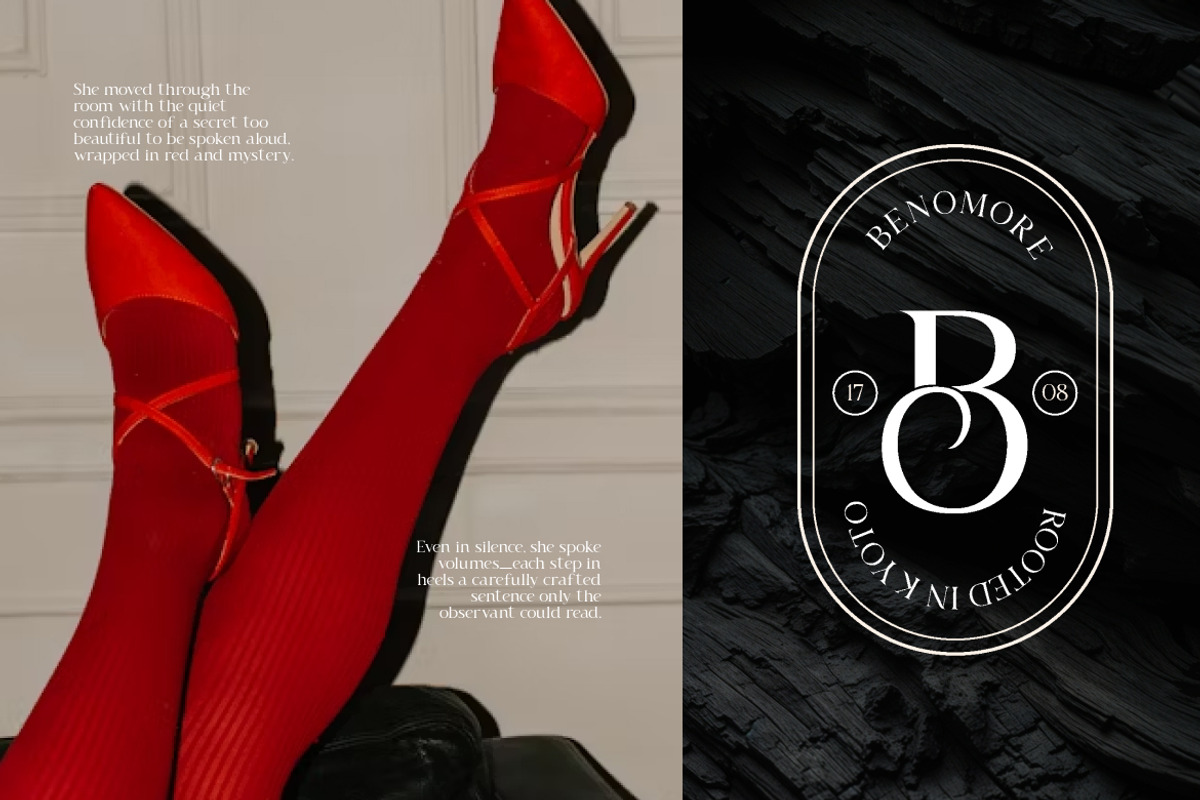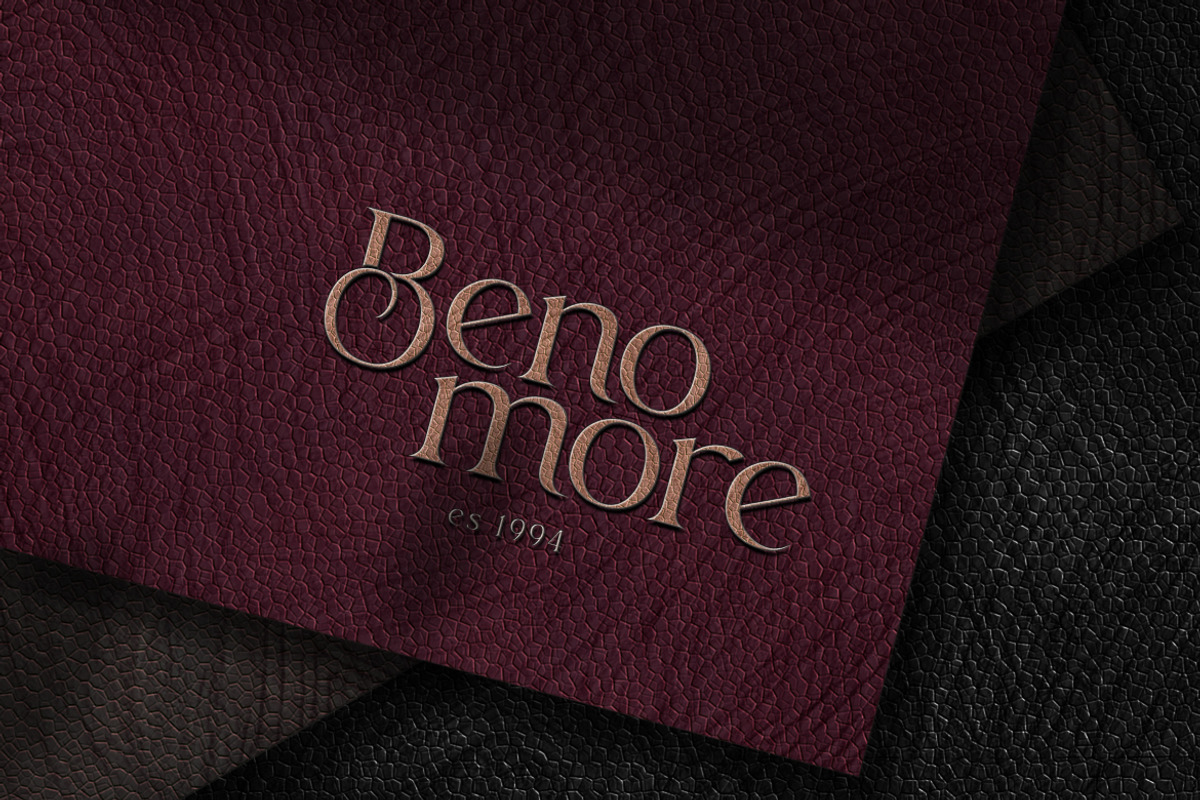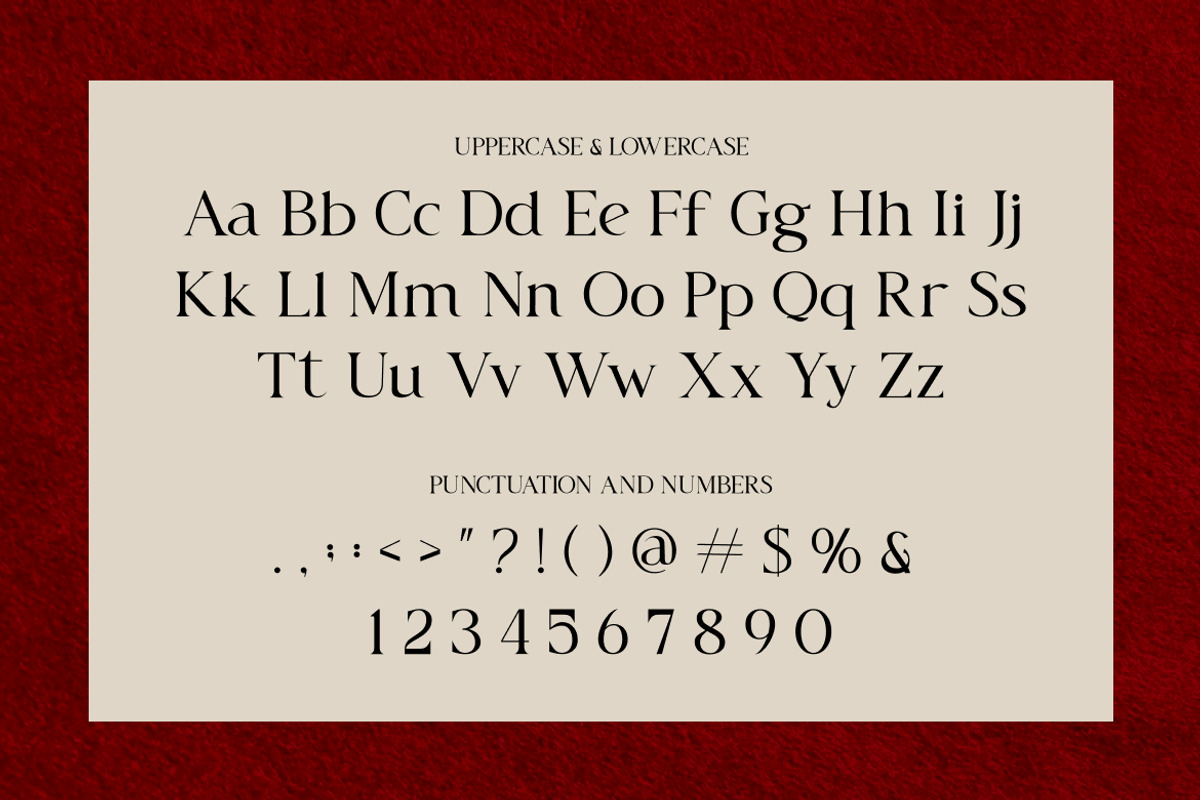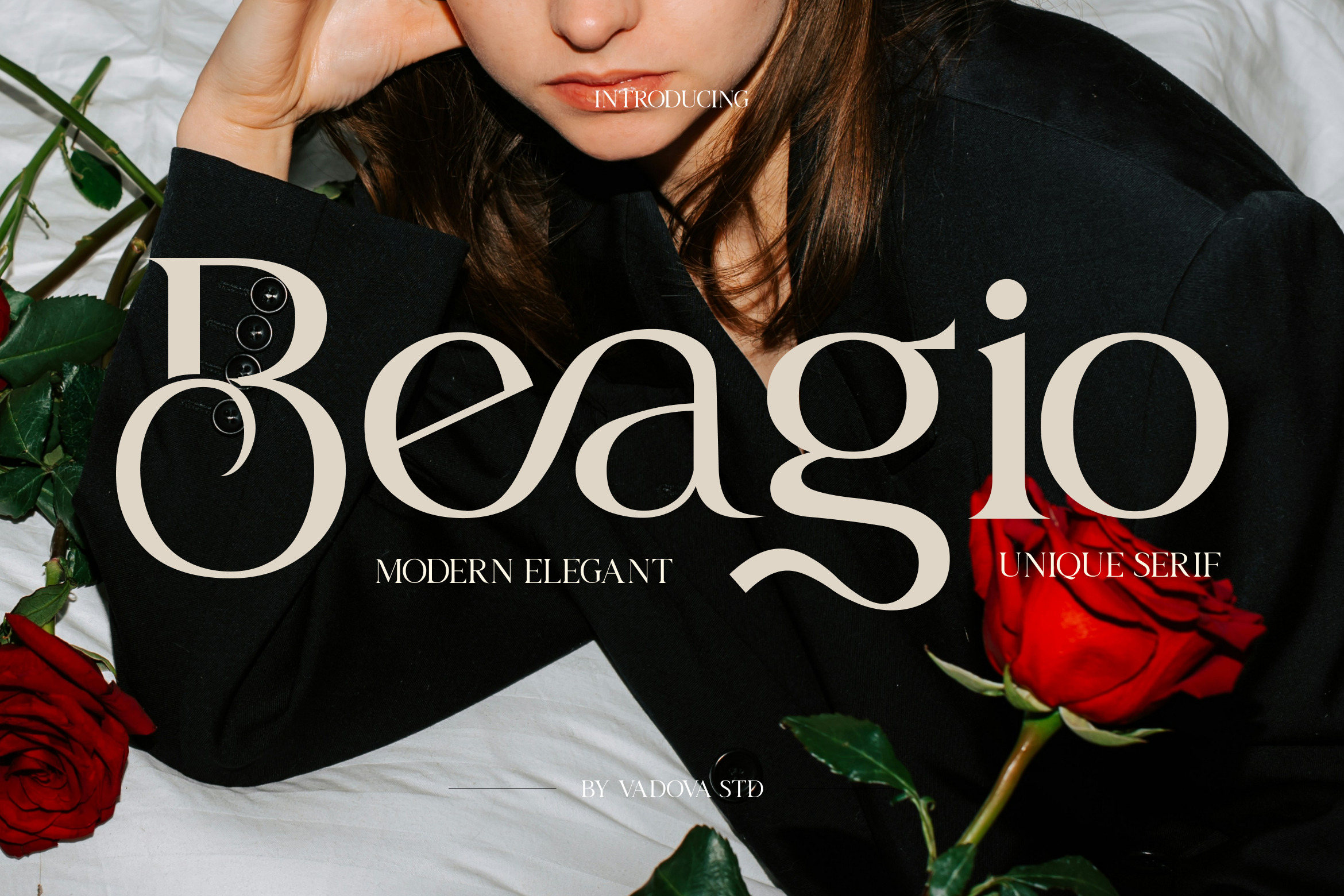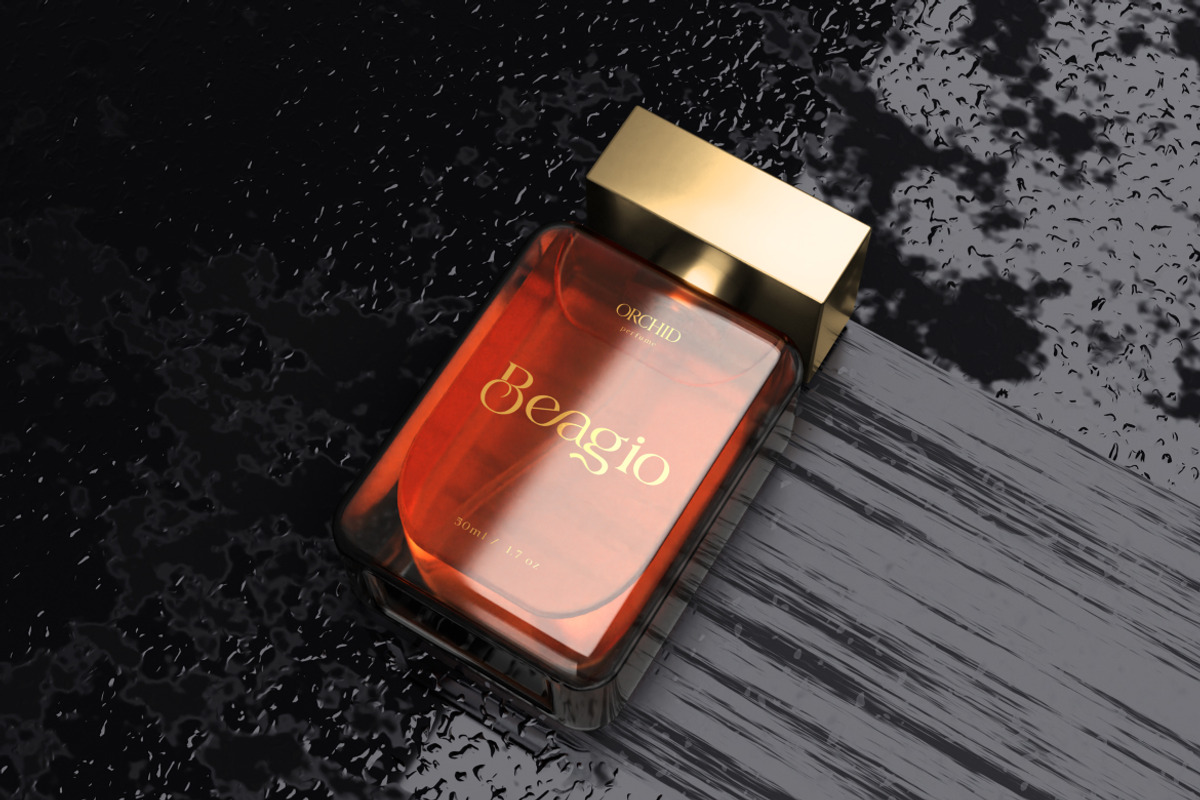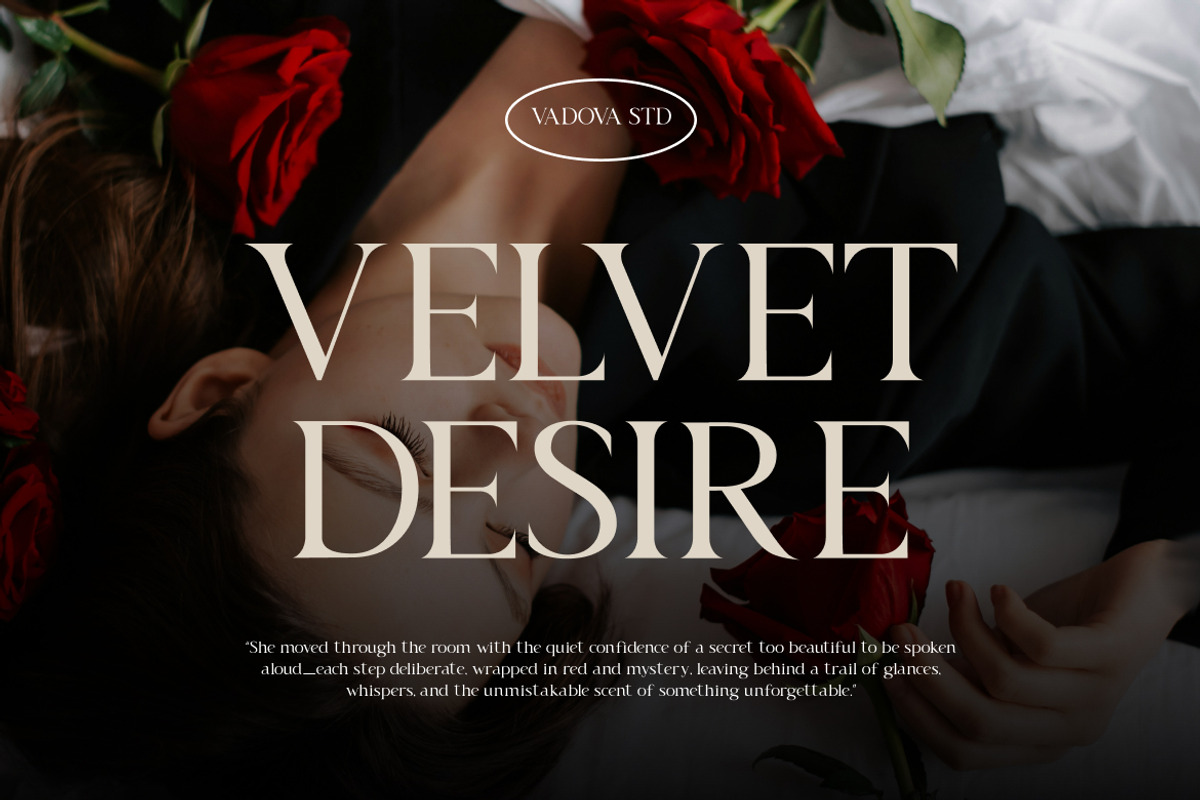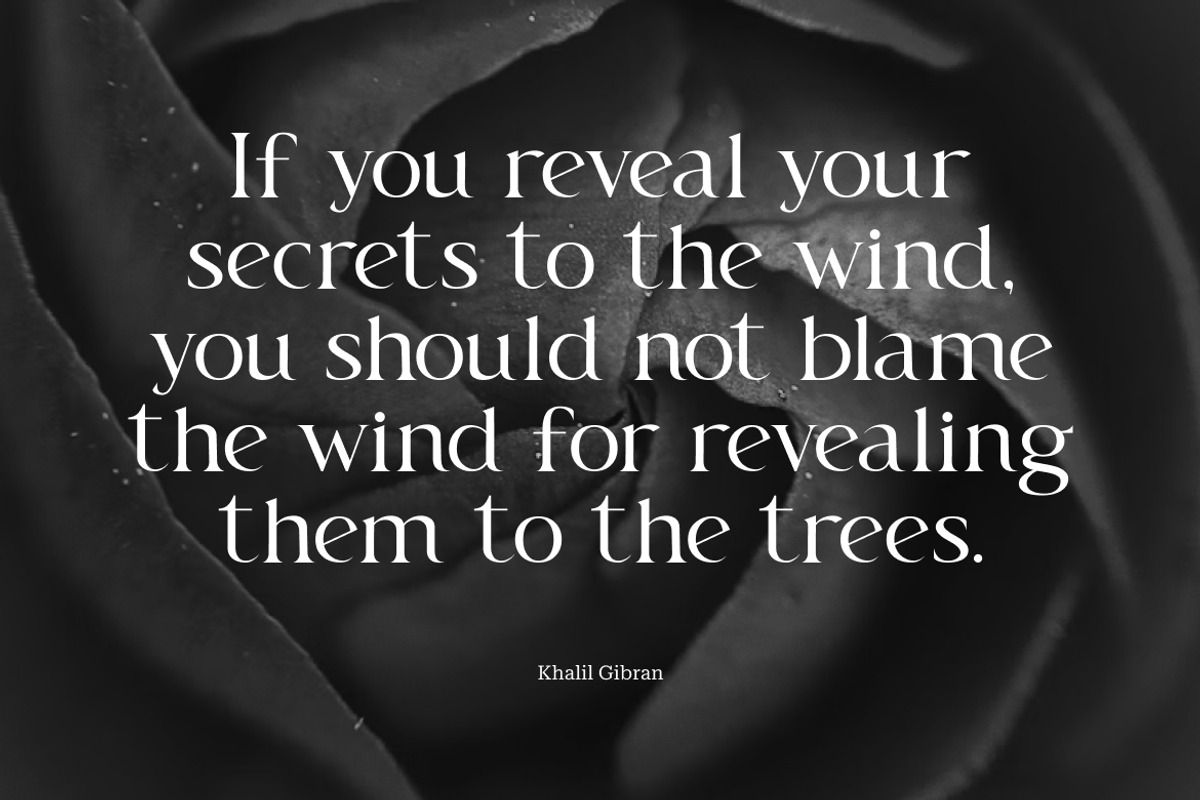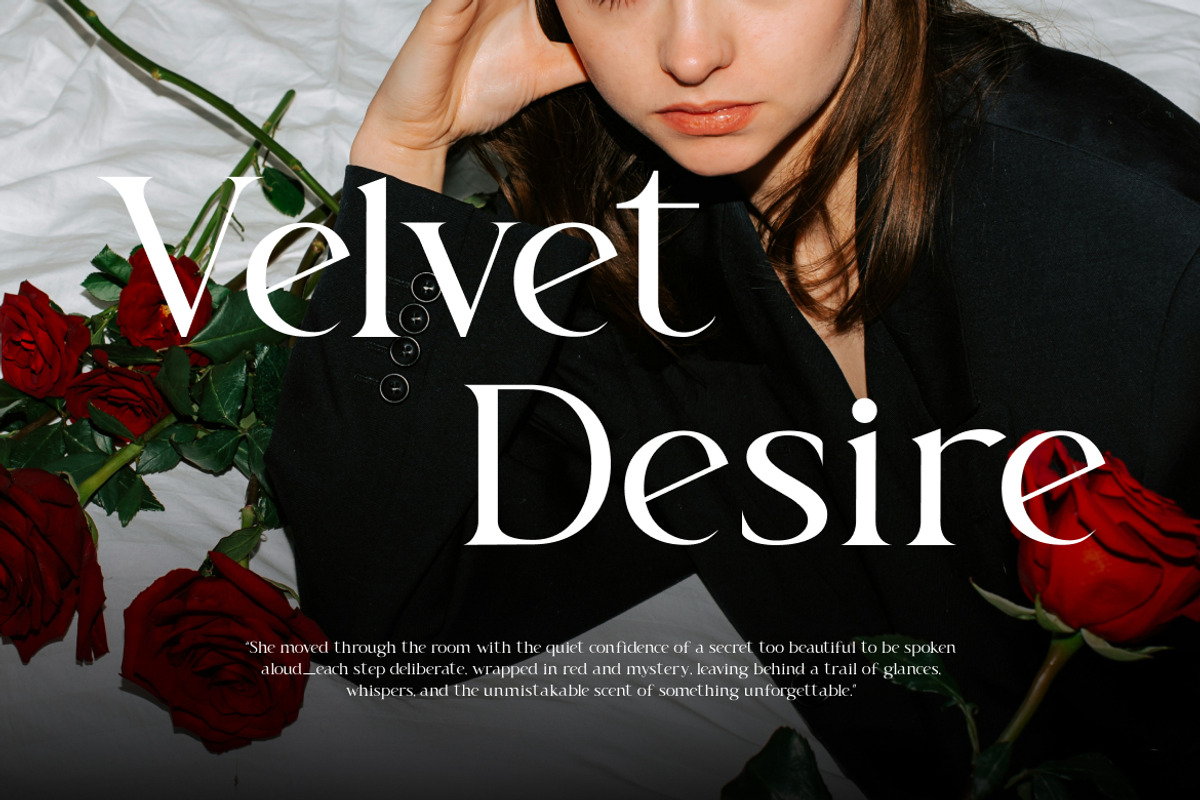
Beagio Modern Elegant Serif Font
Beagio is a refined and elegant serif typeface with distinctive character and artistic flair. Featuring smooth curves, high contrast strokes, and uniquely shaped terminals, this font blends classic serif sophistication with modern design sensibilities. Beagio includes full uppercase and lowercase letters, numerals, punctuation, and multilingual support, making it highly versatile for editorial design, branding, fashion titles, signage, and premium digital or print projects. Its graceful letterforms deliver a beautiful rhythm on both large headlines and refined body text.
Beagio is perfect for designers and creatives who want an elegant serif with personality and depth. Its distinctive shapes make it especially suitable for fashion editorials, magazine layouts, luxury branding systems, book covers, wedding stationery, boutique packaging, and website hero headers that need a refined aesthetic with visual impact.
- Elegant serif design with high contrast strokes for visual drama
- Unique ligatures and refined curves that add artistic flair
- Clean, slender stems with contemporary proportions
- Balanced spacing for polished readability across sizes
- Full uppercase & lowercase, numerals, punctuation
- Editorial spreads and magazine titles needing a stylish serif
- Fashion branding and high-end product packaging
- Wedding invitations and luxury stationery
- Website text and headline typography
- Social media graphics with a modern classic look